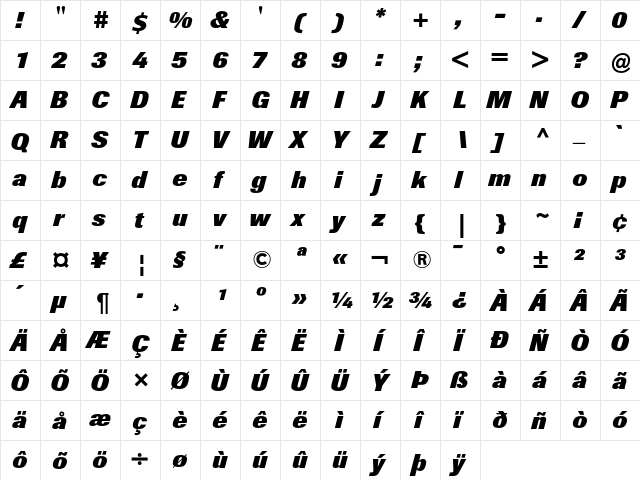
Berthold Imago Extra Bold Italic
Design Context for Berthold Imago Typeface
Berthold Imago takes a measured approach to typography — its balanced proportions and neutral character make it a reliable workhorse for both digital and print work. Its italic angle brings a sense of urgency and motion to the letterforms. Its bold stroke weight gives it real presence on the page.
Pro Tip: Use Berthold Imago for emphasis, pull quotes, and subheadings where its slanted energy can add rhythm to the layout.